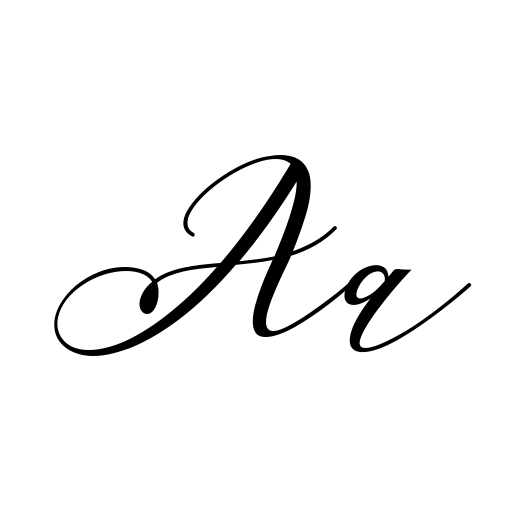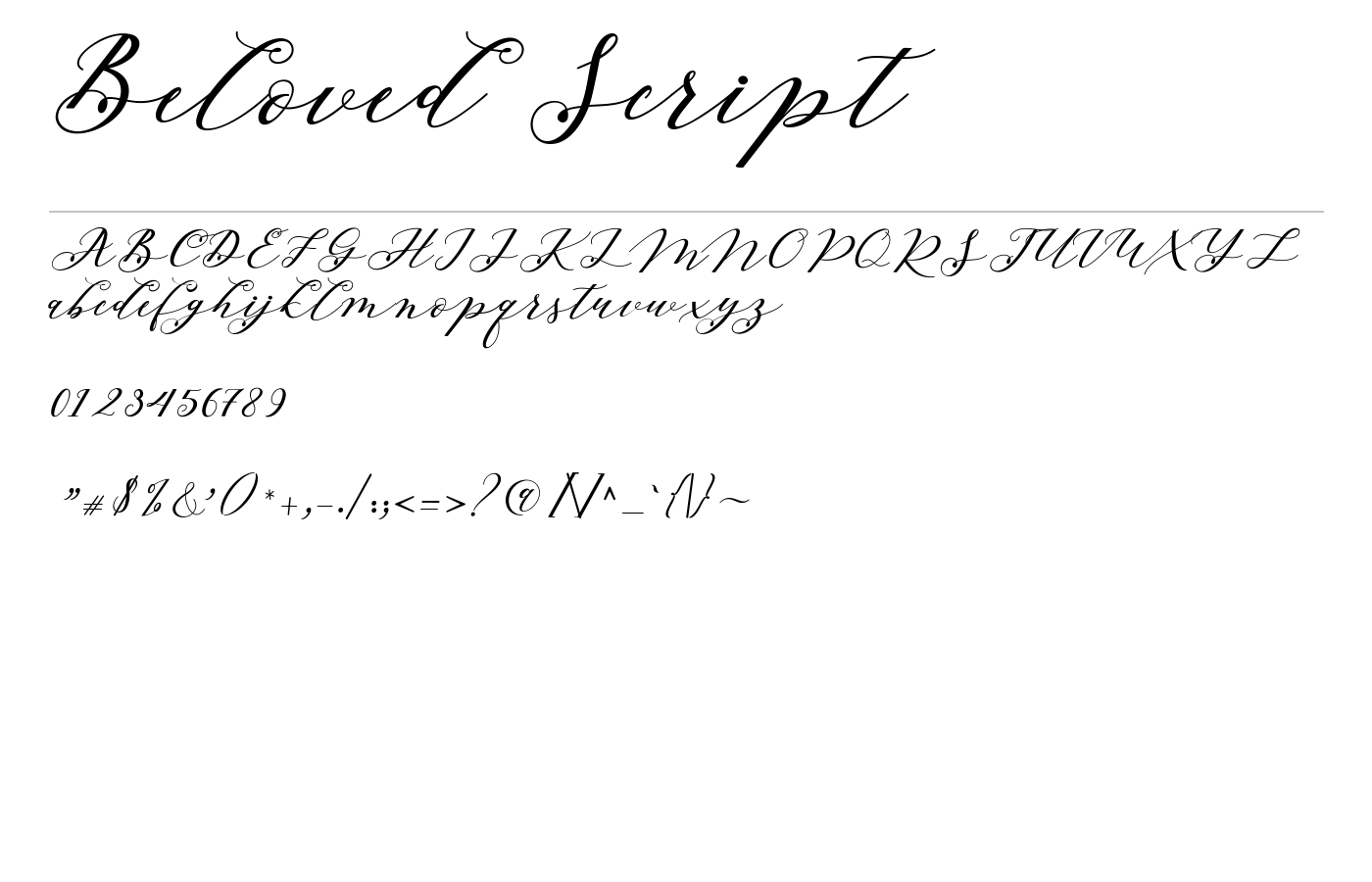
Beloved Script is an elegant, delicate script font with flowing, graceful lines and subtle contrast in stroke weight, giving it a refined and sophisticated feel. Its ornate swashes and smooth connections make it perfect for romantic branding, wedding invitations, and luxury packaging where a touch of classic charm and femininity is desired. This font works best for decorative headlines and accents rather than body text, adding a beautiful, handcrafted quality to any design.
Beloved Script Font
About Beloved Script Font
| Font family | Beloved Script Font |
| Designer | Musafir LAB |